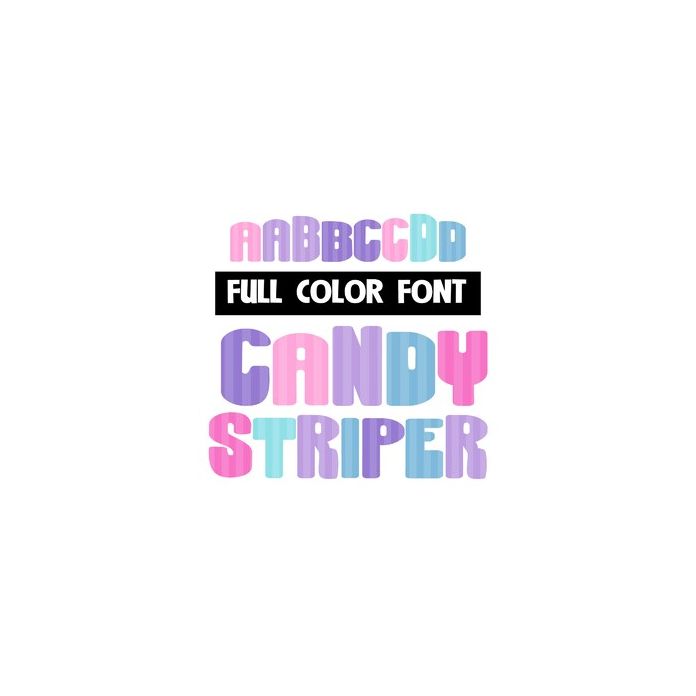
This full-color font features pastel pink, purples, and blues in striped lettering. There is an alt case you can access by using your system's character map.